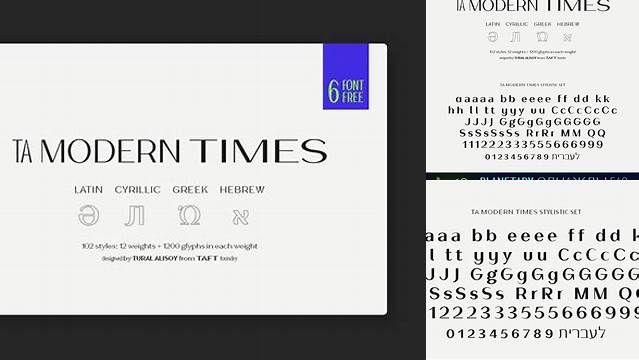
Unveiling the Charm of TA Modern Times Font
Hey everyone! Let's talk about a font that's been making waves in the design world – the TA Modern Times font. If you're someone who appreciates clean lines, a touch of vintage flair, and a whole lot of versatility, then this font is definitely one you'll want to get your hands on. Imagine creating branding for a hip new coffee shop, designing eye-catching posters for a local music festival, or even crafting elegant invitations for a special event; the TA Modern Times font can seriously elevate your projects. It's got this awesome balance between being contemporary and having a nod to classic typography, which makes it super adaptable for a wide range of applications. We're going to dive deep into why this font is so popular and, most importantly, how you can snag a free download to start using it in your own creative endeavors. Get ready to explore the nuances that make TA Modern Times a go-to choice for designers looking to add a touch of sophisticated style without compromising on readability. It’s the kind of font that doesn't just display text; it tells a story, conveying a sense of history and modern relevance all at once. Whether you're a seasoned pro or just starting out, understanding the appeal and accessibility of fonts like TA Modern Times is key to unlocking your design potential. This font is more than just letters; it’s a statement piece for your visual communication.
Exploring the Design Aesthetics of TA Modern Times Font
The TA Modern Times font is a real winner when it comes to its design. It’s not just a pretty face, though; its structure is meticulously crafted. Think clean, geometric sans-serif shapes, but with a subtle warmth that keeps it from feeling sterile. This delicate balance is what gives TA Modern Times its distinctive character. You’ll notice the subtle variations in stroke width, the carefully considered letter spacing, and the overall harmony of the character set. These aren't accidental; they're the result of thoughtful design, aiming to create a font that is both aesthetically pleasing and highly functional. When you use TA Modern Times, you’re not just choosing a typeface; you’re selecting a visual personality for your brand or project. It’s sophisticated, approachable, and has a timeless quality that makes it suitable for a vast array of design needs. Whether it’s for headlines that need to grab attention, body text that needs to be easily digestible, or even as a stylistic element in logos, TA Modern Times delivers. Its ability to evoke a sense of modern sophistication with a hint of retro charm is truly its superpower. It's the kind of font that designers love because it provides a strong foundation while still allowing for creative expression. The careful attention to detail in each glyph ensures that your text will look polished and professional, no matter the context. This font truly embodies the idea that good design is in the details.
Why TA Modern Times Font is a Designer's Favorite
So, what makes the TA Modern Times font so beloved among designers, guys? Well, it really comes down to its incredible versatility and its unique aesthetic appeal. This isn't just another generic sans-serif; TA Modern Times brings something special to the table. It’s got that perfect blend of modern crispness and a subtle, almost nostalgic, charm. This unique combination makes it suitable for a huge range of projects. Imagine crafting a sleek, minimalist brand identity for a tech startup – TA Modern Times nails it. Or maybe you’re designing a vintage-inspired poster for a craft brewery – this font fits that vibe perfectly too! It bridges the gap between classic and contemporary design effortlessly. Plus, it’s incredibly legible. Whether you’re using it for large headlines or smaller body text, the clarity and readability are top-notch. This is crucial for any design project where clear communication is key. The thoughtful letterforms and balanced spacing ensure that text remains easy to read, even at smaller sizes or in busy layouts. Designers also appreciate the attention to detail in its construction; the subtle curves and well-defined strokes give it a premium feel. It’s the kind of font that makes your work look more polished and professional, without feeling overly formal. It’s approachable yet sophisticated, making it a true workhorse in a designer's toolkit. If you're looking for a font that can adapt to various styles and maintain a strong visual presence, TA Modern Times is a seriously strong contender. It’s a font that understands the demands of contemporary design and delivers with style and substance.